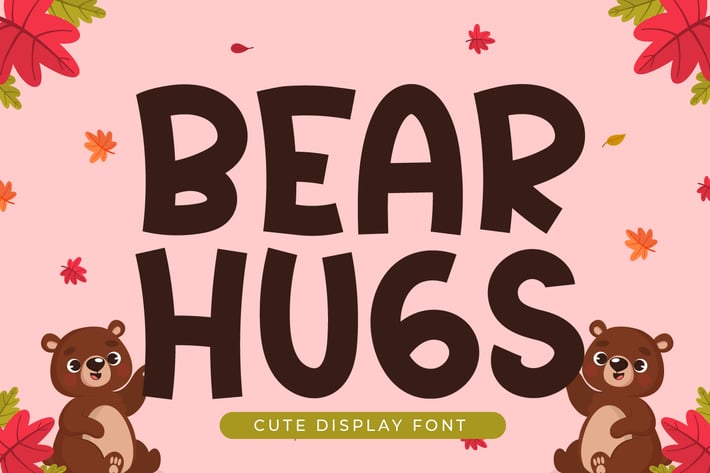
Bear Hugs - Bold Cute Display Font
Introducing Bear Hugs - Bold Cute Display Font
Bear Hugs is a bold and cute display font. It embodies playfulness and authenticity and is the perfect choice for any children activity or school project. Add this chunky lettered font to your designs and notice how it makes them come alive!